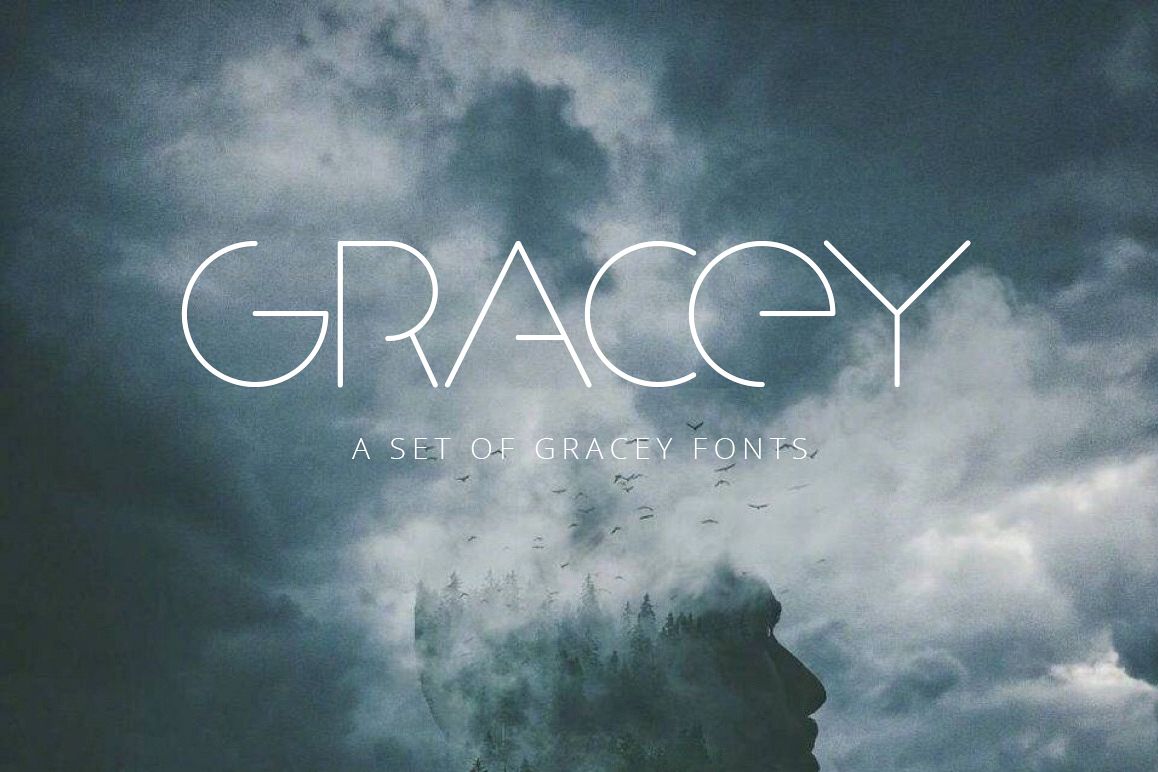
Gracey Font
Gracey is highly legible sans serif font,Applies to the logo, slogan, or product names.
Recommended for Newspaper, Magazine, Book, Web and Corporate use.
The type family consists of 3 weights (100 = Thin, 300 = Light, 500 = Medium) in True Type format.
Gracey Font